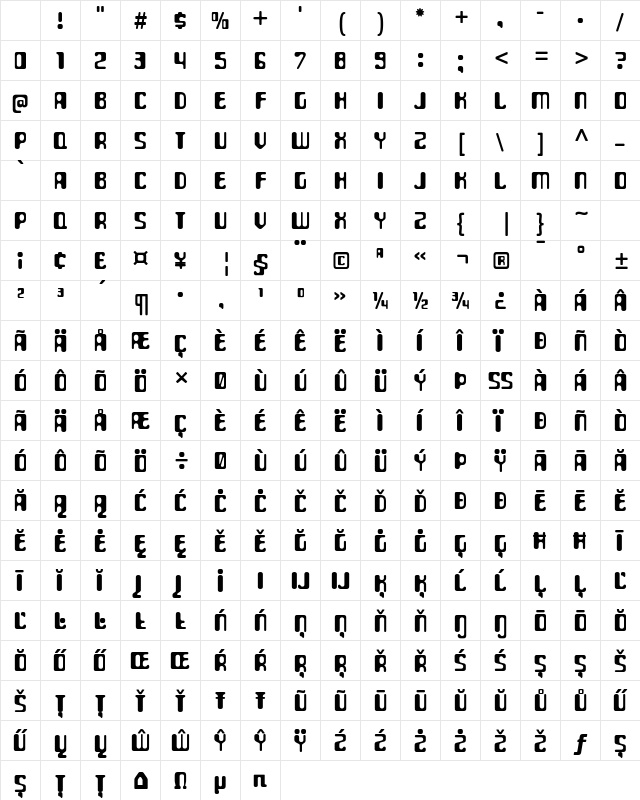
Complete ParaAminobenzoic Regular glyph index. Displaying only characters natively supported by ParaAminobenzoic Regular font.
ParaAminobenzoic is a composed and adaptable typeface that performs quietly and consistently across a wide range of design contexts.